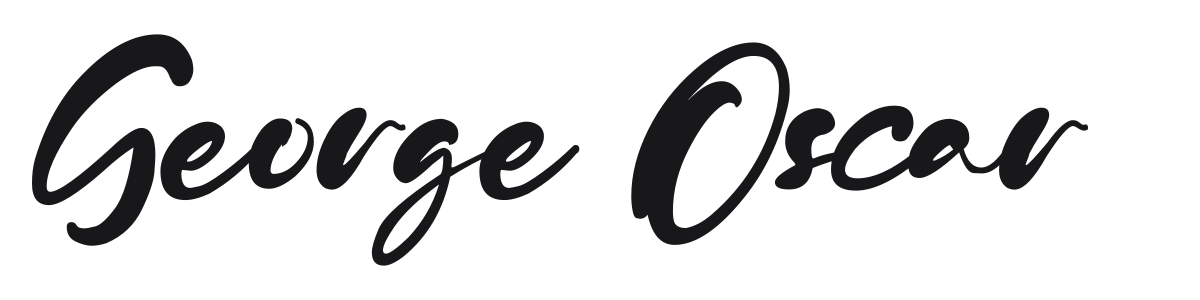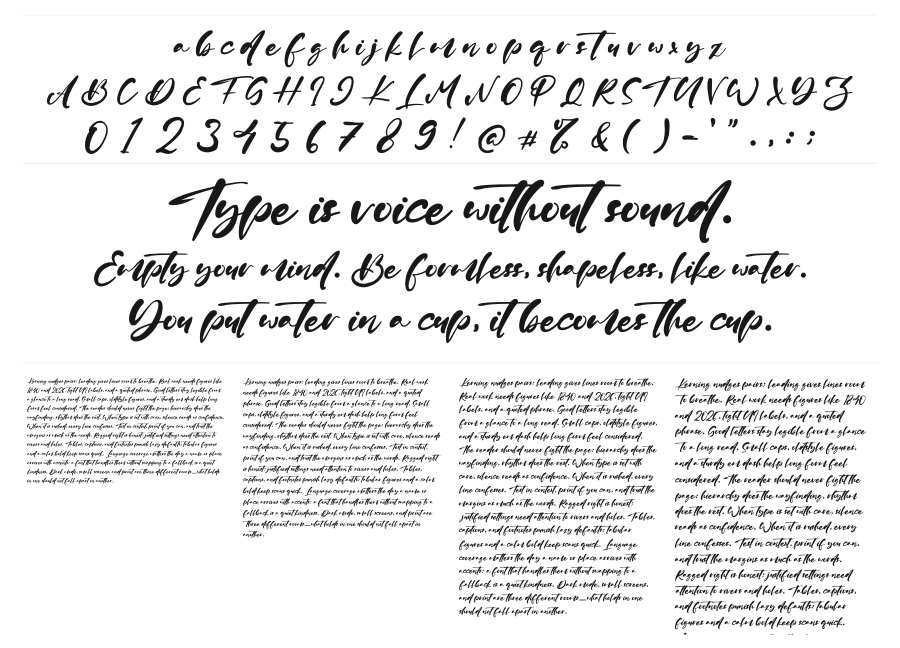
George Oscar
George Oscar is a lively contemporary brush script built on the expressive pressure dynamics of hand-lettering, with thick swells and hairline thin strokes creating strong contrast throughout. The generous ascenders and sweeping connections give the text a natural, fluid momentum. It suits branding, packaging, and editorial contexts where a handcrafted yet polished feeling is the goal.